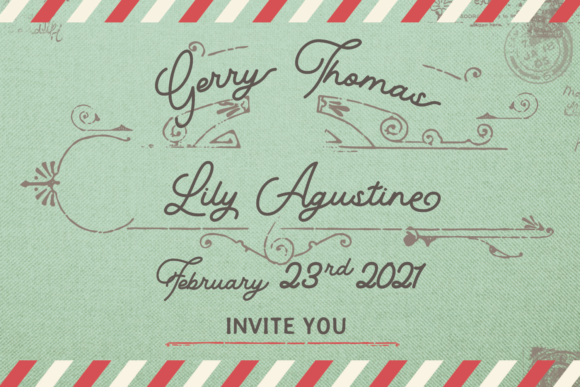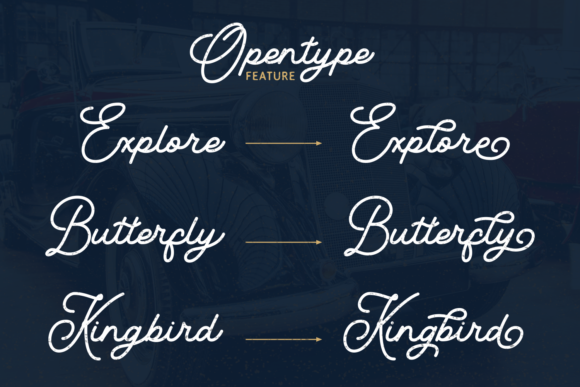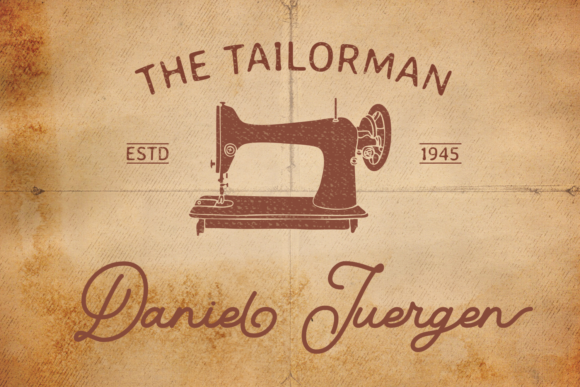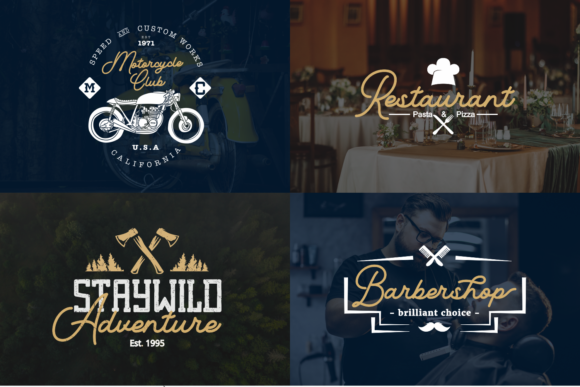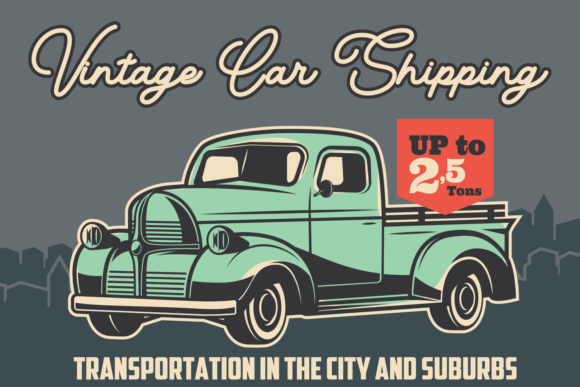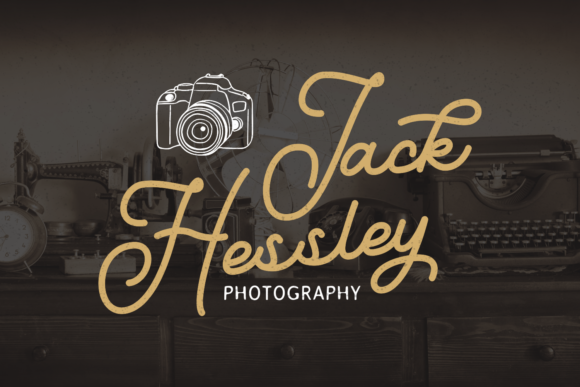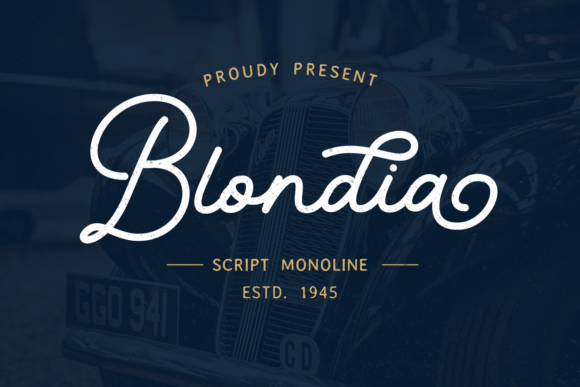
Introducing Blondia Font: The Enchanting Monoline Script Font for Creative Designs
In the world of typography, fonts play a crucial role in conveying the tone and personality of a brand or design. For designers and crafters looking for a unique and captivating font to elevate their creative projects, Blondia Font is an excellent choice. Blondia is an enchanting monoline script font that is perfect for creating vintage logos, branding, social media posts, quotes, and any design that requires a personalized look.
What Makes Blondia Font Special?
Blondia Font stands out from other fonts due to its elegant and sophisticated monoline script style. The font features smooth, flowing lines that give it a luxurious and refined feel, making it ideal for designs that require a touch of elegance and sophistication. Whether you’re working on a logo, branding materials, or social media posts, Blondia Font is sure to add a touch of personality and whimsy to your designs.
Key Features of Blondia Font
- Monoline Script Style: Blondia Font features a beautiful monoline script style that is both elegant and refined.
- Vintage Inspiration: The font draws inspiration from vintage typography, making it perfect for creating retro-style logos and branding materials.
- Highly Versatile: Blondia Font can be used for a wide range of design projects, including logos, branding, social media posts, quotes, and more.
- Easy to Read: Despite its elegant and cursive style, Blondia Font is highly legible and easy to read, making it perfect for body text and captions.
Use Cases for Blondia Font
Blondia Font is a highly versatile font that can be used for a wide range of design projects. Here are some use cases where Blondia Font shines:
- Vintage Logos: Create retro-style logos that evoke a sense of nostalgia and elegance with Blondia Font.
- Branding Materials: Use Blondia Font to create branding materials such as business cards, letterheads, and packaging that reflect your brand’s personality.
- Social Media Posts: Add a touch of personality to your social media posts with Blondia Font, making them stand out in crowded feeds.
- Quotes and Typography: Use Blondia Font to create stunning typographic quotes and posters that showcase your favorite quotes.
Tips for Using Blondia Font Effectively
To get the most out of Blondia Font, here are some tips to keep in mind:
- Pair with Neutral Backgrounds: Pair Blondia Font with neutral backgrounds to make it stand out and showcase its elegance.
- Experiment with Colors: Experiment with different colors to find the perfect combination that matches your brand’s personality.
- Use for Headlines and Titles: Use Blondia Font for headlines and titles to add a touch of personality and whimsy to your designs.
In conclusion, Blondia Font is an enchanting monoline script font that is perfect for designers and crafters looking to add a touch of elegance and sophistication to their designs. With its highly versatile and elegant style, Blondia Font is sure to become a go-to font for creative projects. Whether you’re working on vintage logos, branding materials, social media posts, or quotes, Blondia Font is an excellent choice.